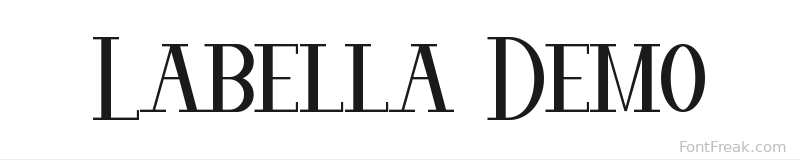
Labella Demo
Labella Demo by Noah Type is an elegant serif font that effortlessly combines modern aesthetics with classic charm. This typeface features a medium stroke weight and a subtle contrast that enhances its readability while maintaining a sophisticated appearance. The carefully crafted letterforms exhibit graceful curves and sharp serifs, providing a sense of refinement. With ample spacing between characters, Labella Demo ensures clarity and legibility, making it a versatile choice for various applications.
This font is ideal for wedding invitations, where its romantic and timeless qualities can create a memorable first impression. Additionally, Labella Demo is perfect for movie posters, lending a cinematic flair that captures attention and intrigues viewers. Restaurant menus will benefit from its stylish presentation, inviting patrons to indulge in a delightful dining experience. Content creators will find this font suitable for blog headers and social media graphics, adding a touch of sophistication to their digital presence.
The target audience for Labella Demo includes graphic designers seeking a unique typeface to elevate their projects, small business owners wanting to convey elegance in their branding, and content creators looking for an eye-catching font to enhance their visual storytelling.
What sets the Labella Demo font apart is its ability to seamlessly blend contemporary design with classic typography elements. This balance not only makes it visually appealing but also highly functional across various mediums. Whether you are designing a chic invitation or a striking promotional piece, Labella Demo brings a level of elegance that is hard to match. Embrace the opportunity to elevate your design work with this font by taking advantage of the Labella Demo font free download, and let your creativity flourish.